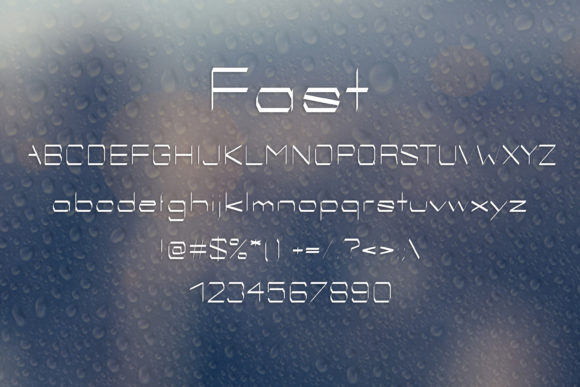
Introducing Fast Font: The Ultimate Display Font for Bold Statements
Are you tired of using the same old fonts for your designs? Look no further! Fast Font is here to revolutionize the way you create stunning visual statements. With its sharp edges and perfectly contrasting thin, fragile lines with bold elements, this gorgeous display font is a true must-have for designers and crafters alike.
What Makes Fast Font So Special?
Fast Font boasts a unique combination of characteristics that set it apart from other display fonts on the market. Its sharp edges give it a sleek, modern look that’s perfect for making a bold statement. At the same time, the thin, fragile lines add a touch of elegance and sophistication, making it ideal for a wide range of design applications.
Key Features of Fast Font
- Sharp Edges: Fast Font’s sharp edges give it a crisp, clean look that’s perfect for headlines, titles, and other display text.
- Contrasting Lines: The font’s thin, fragile lines provide a beautiful contrast to its bold elements, adding depth and visual interest to your designs.
- Bold Elements: The bold elements in Fast Font are perfect for making a statement and drawing attention to your message.
- High Versatility: Fast Font is highly versatile and can be used for a wide range of design applications, from posters and flyers to logos and branding.
Why Designers and Crafters Love Fast Font
Fast Font has quickly become a favorite among designers and crafters due to its unique combination of style and versatility. Here are just a few reasons why:
- Easy to Read: Despite its bold and edgy look, Fast Font is surprisingly easy to read, making it perfect for use in a variety of design applications.
- Highly Customizable: Fast Font can be easily customized to fit your specific design needs, from adjusting the font size and color to adding effects and textures.
- Unique Style: Fast Font’s unique style sets it apart from other display fonts on the market, making it a great way to add some personality to your designs.